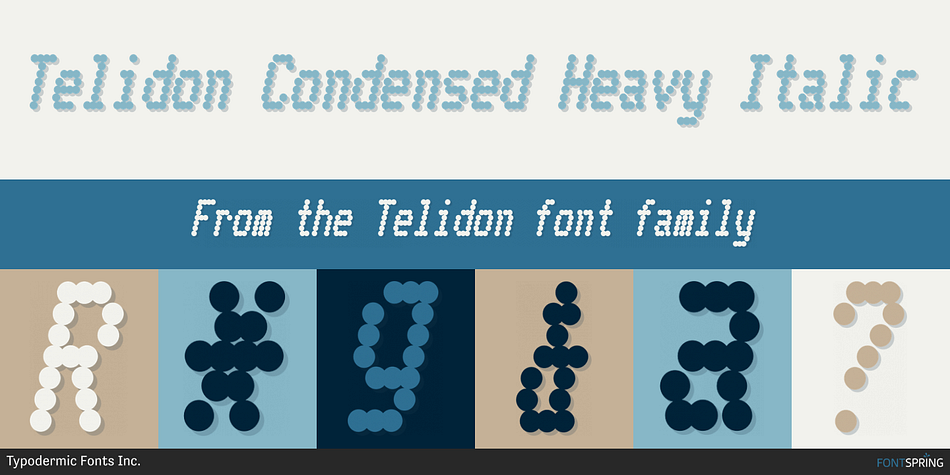
Telidon Condensed Heavy Italic
Telidon is a typewriter font family. This typeface has eighteen styles and was published by Typodermic Fonts Inc.
Introducing Telidon—the typeface that brings the nostalgic charm of old dot matrix printers to life. It’s a typeface that’s full of character, inspired by the clunky, mechanical printers of the 1980s that used to hum, buzz and chug away, as they churned out reams of perforated pages.
Telidon’s unique dot-matrix appearance isn’t just a throwback to a bygone era, it’s a design element that can help your words stand out from the crowd. With its quick and simple flavor, Telidon will add a jolt of energy to your text, making it perfect for headlines, titles, and logos.
This versatile typeface comes in three widths, three weights, and italics, giving you the freedom to create dynamic layouts and add emphasis where needed. Whether you’re designing a retro-inspired poster, a tech-forward website, or anything in between, Telidon is the font that can take your project to the next level.
But wait, there’s more! Telidon also has a grungy companion—Telidon Ink—that can give your design a rough-and-tumble edge. So why not add a little dot-matrix magic to your designs and give Telidon a try? You won’t be disappointed!